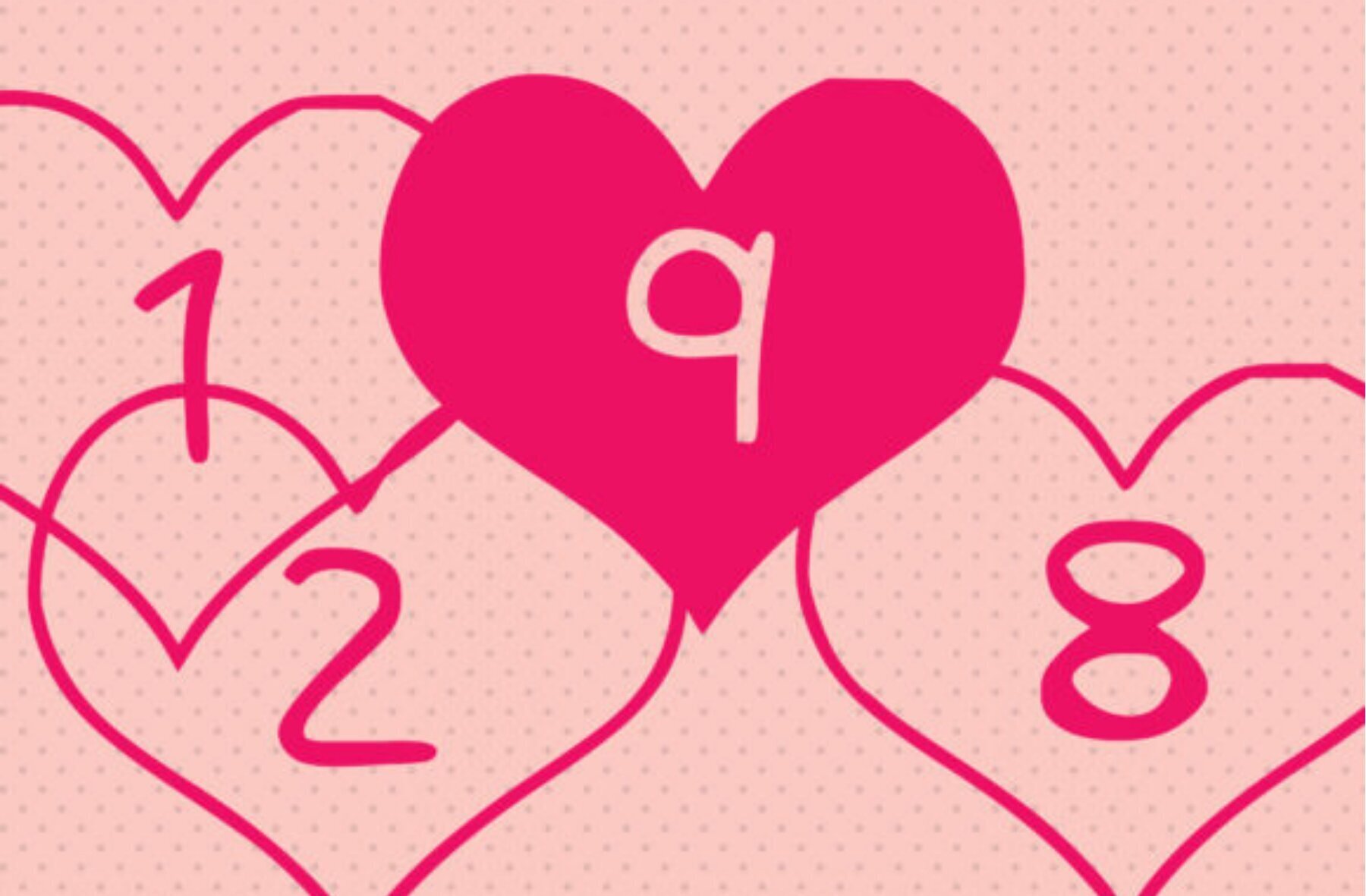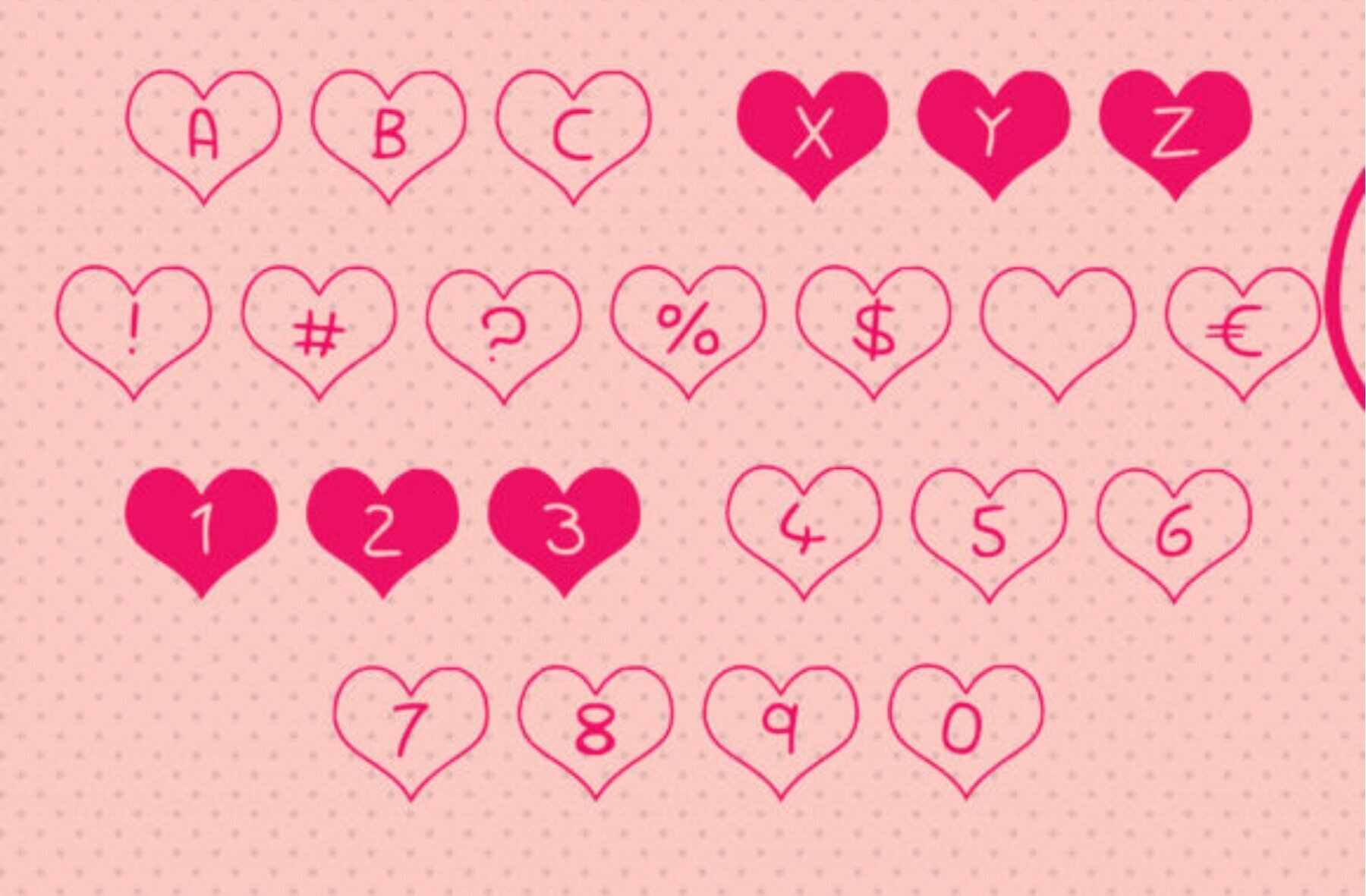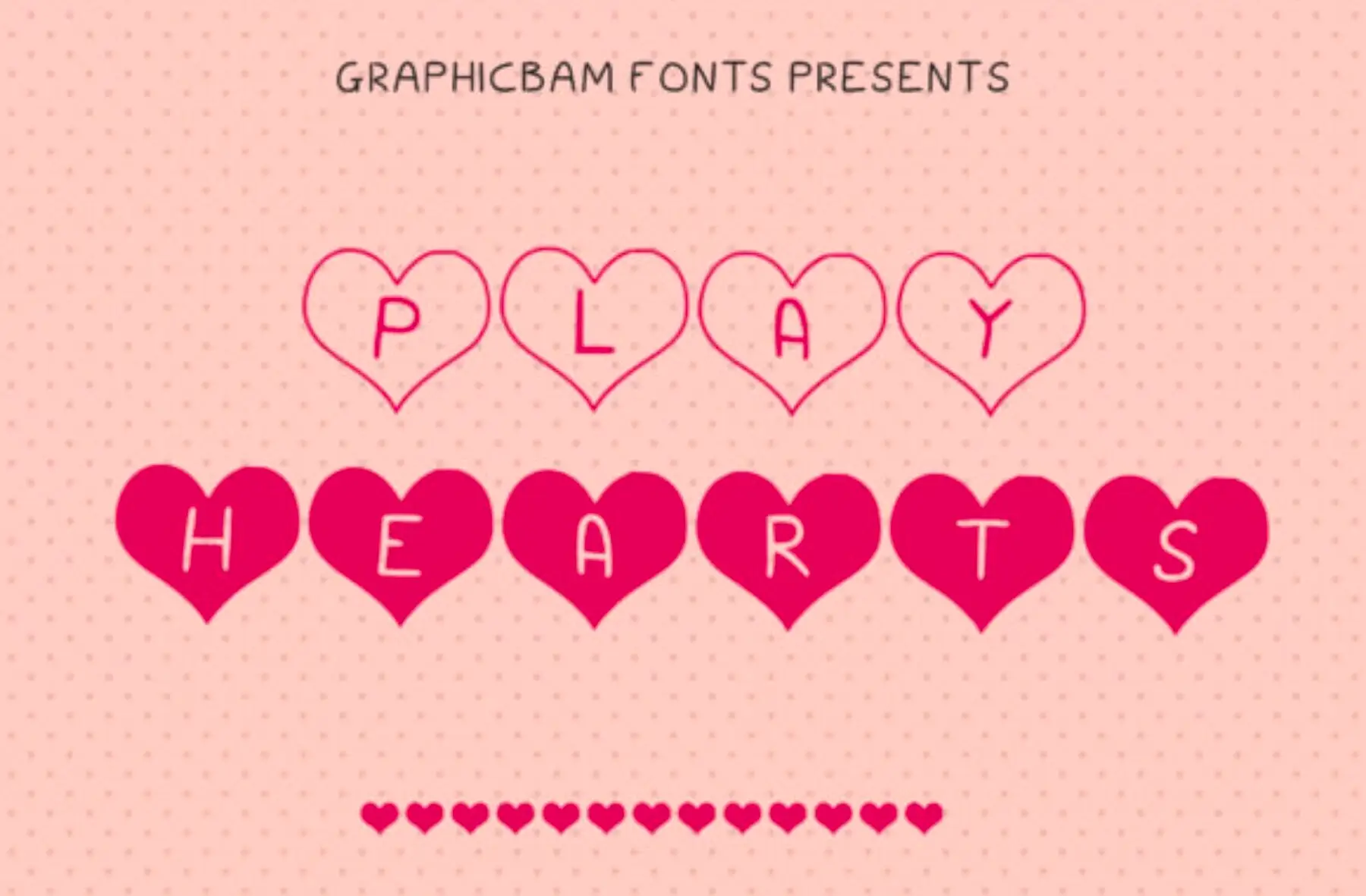
Play Hearts Pack Font
Add a touch of romance to your designs with the charming Play Hearts decorative font. Perfectly suited for Valentine’s Day projects, love letters, or any design that craves a warm, heartfelt essence. Play Hearts Pack